Type Trends Quarter One 2022
As part of our on-going efforts to keep you typographically informed, up-to-date and in-the-know, we reached out to two very different designers with very different processes – but with very similar typographic goals.
Evocative typography and the use of variable fonts, are here to stay. They may not be new trends but, they are certainly forces to be reckoned with.
Evocative typography has been around since Gutenberg came up with the idea to make printed words look like calligraphy. It’s just that, today, we have so many ways to create evocative graphic communication, and it is being used in wildly different applications.
Typographic Pioneer
While studying in Paris, Liza Enebeis was looking for a design internship. She always liked Dutch design. To her, it felt like the Dutch were prepared to take bigger risks, and liked experimenting.
A particular agency caught her eye: Studio Dumbar/DEPT® in Rotterdam. She approached them and they offered her a position. Today, Liza is a partner and creative director at the same company. She is directly involved with all main projects such as the visual identity for Amsterdam Sinfonietta, D&AD Creativity festival, brand refresh of the van Gogh Museum and co-initiator of Demo - Design in Motion Festival.
While a creative tour de force, Liza does not work alone. She was quick to give credit to Benoit Brut and Bart Vollebregt, type-focused visual designers in the studio, who also contributed to this article.
Designer and Lover of the Outdoors
Tim McGrath is a lover of the outdoors, who also cofounded (and is a design director) at 3 Advertising in Albuquerque, New Mexico. He studied design at Rochester Institute of Technology (RIT) and the Laguna College of Art and Design in California.
Over the past 25 years, Tim has worked on national, regional and local brands in virtually every category. His work has been recognized by the National Addys, Communication Arts, Lürzer’s Archive, The One Show, Print, Step and Type Directors Club. As a passion project, he also runs overland outfitter company Sackwear.
When he’s not designing work for a client, Tim is probably designing some of Sackwear’s apparel. When he’s not designing, you’ll probably find him on the back roads of Colorado or Iceland, or as far from a computer as a human can get.
Like Liza, Tim also depends highly on people in his office for creative support: Jason Rohrer, Sam Maclay, and Zak Rutledge. (Another trend shared by Tim and Liza: collaboration with other creatives.)
Animation and Variable Fonts
Liza, and Studio Dumbar are big fans of typographic animation and variable fonts. When we asked what she thought was a major factor in current typographic trends, her answer was brief and immediate. “100% variable - and here to stay!” It is this positive attitude that drives much of the studio’s evocative design solutions.
“Variable fonts have become a valuable tool and a real help in creating different types of motion,” Liza continues. “They not only give us flexibility in the way we work, but also when applying typography across different mediums.”
“In addition, variable fonts help us create a wide range of different expressions easily – and with modest expense. They also provide a vehicle to reveal a surprise to the audience. Variable fonts allow us to easily switch from one state to another, and change from a functional statement to one that is more illustrative, or outspoken.”
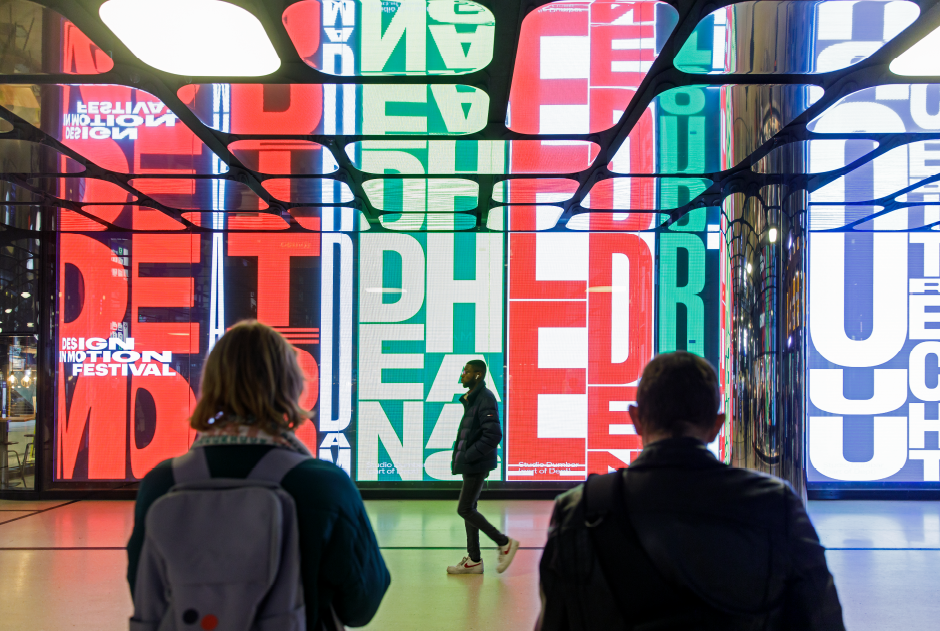
Static Fonts do the Trick
Tim, on the other hand, relies primarily on static font choices. “MyFonts has such a huge selection of typefaces,” he says, “that we can always find what we want.”
“The Step 22 project is a perfect example,” he explains. “The Step brand is masculine and outdoorsy. We were looking for a simple suite of typefaces, that spoke to the brand, and complemented each other perfectly. After some searching we found Hudson NY Slab and Hudson NY Serif. We then found DIN® Next, which is an excellent companion to the main branding designs.”
Other projects take advantage of static fonts to bring voice and, many times, humor to address client needs. This ranges from the Green Chile Cerveza packaging solution to the many pieces for the Beer Institute’s celebration of the 80th anniversary of the repeal of Prohibition, and the corporate ID system for the Fine Law Firm and the identity for OilSlick Imports. “ For Oilslick, we designed an identity system that felt old world,” says Tim, “but still addressed the quirkiness of the name ‘OilSlick.’ Humor creates memorability. It’s personal and can build a one-to-one relationship between the brand and its audience.”
Type is a Multifaceted Tool
Liza, also, clearly understands the power of type, when it comes to brand awareness. “We believe that the use of typography is a direct way to communicate information and to deliver a clear and straightforward message. Through the use of strong and distinctive typography, the message can be expressed more directly and can replace the use of illustration or ‘embellishment.’ The typography then becomes the image and the focus of the project.”
Liza and Tim may address their typographic goals in very different ways, but their results are remarkably similar: engagement of the audience, and the creation of memorability. Their work is trendsetting but, more important, their goals are universally smart. Just ask Gutenberg.